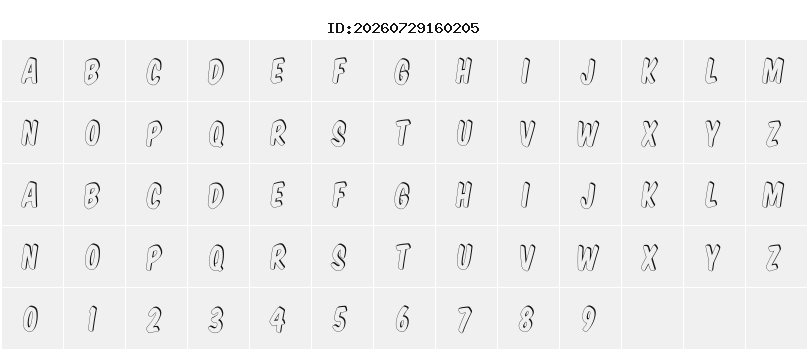
Komika Title - Shadow Preview
• Font Name: Komika Title - Shadow
• Full Font Name: Komika Title - Shadow
• PostScript Name: KomikaTitle-Shadow
• Designer: WolfBainX & Apostrophe
About Komika Title - Shadow.ttf
Komika Title - Shadow.ttf is a modern, elegant sans-serif font designed for ultimate readability and visual harmony. Perfect for branding, headlines, web design, and print materials.